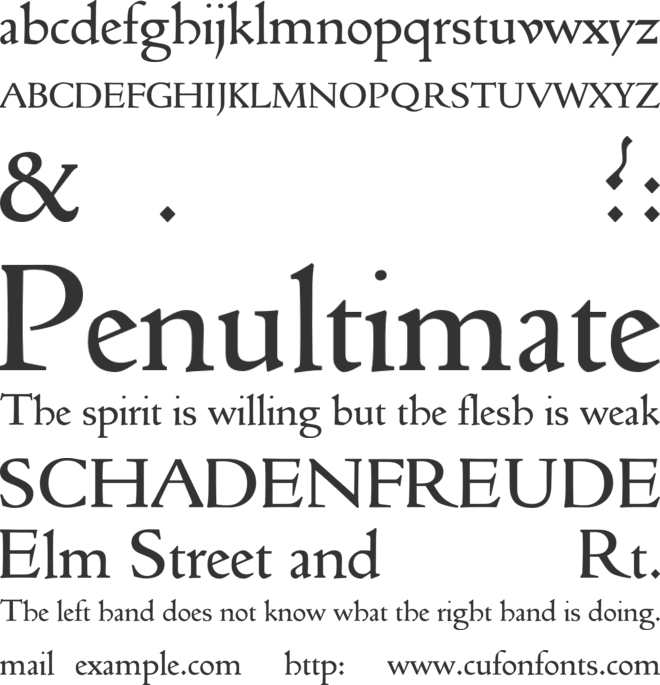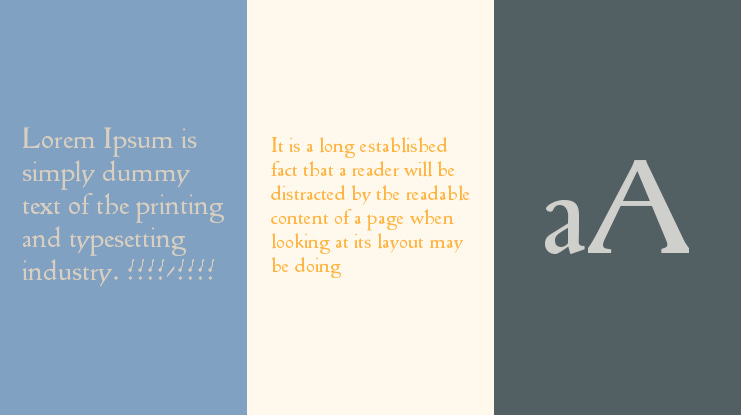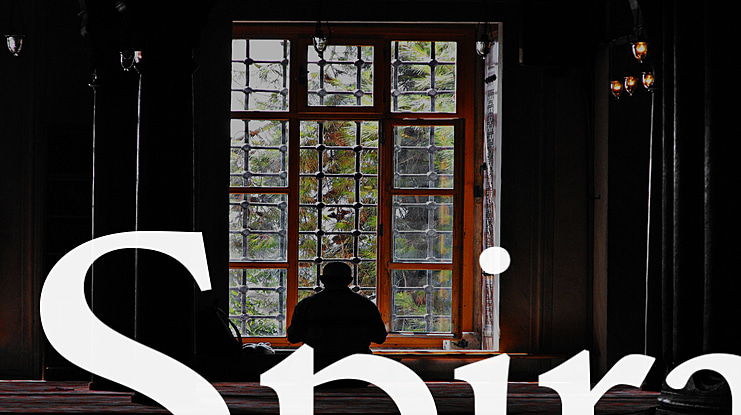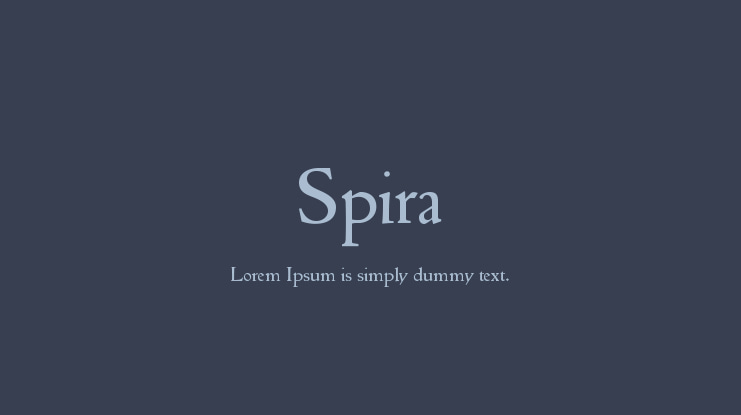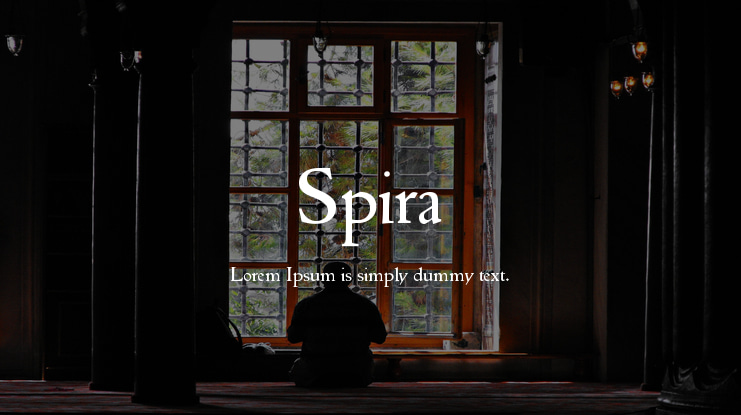
Spira Font
Alexis Faudot, Rafael Ribas
Spira 110R, Proto-Roman first used in Venice by Johannes and Vindelinus de Spira for Ciceroâs Epistolae ad familiares in 1469 and used until 1473 by Vindelinus.Type design workshop at ENSBA Lyon and Bibliothèque municipale de Lyon, March 2017.Sources: Opera, Cyprianus, 1471 & Geographiae libri, Strabon, 1472.Workshop participants: Marika Belle, Lucile Boutin, Ana Brena, Louis Brousseaud, Constance Burger-Leenhardt, Charlotte Carletto, Anais Chappelet, Elorah Connil, Aurelie Massa, Noemie da Cruz, Marie Doz, Camille Houel, Sarah Millet, Claire Mouton, Simon Penard, Marie Sophie Robert.Font designed and produced by Alexis Faudot and Rafael Ribas, directed by Jérôme Knebusch, Atelier National de Recherche Typographqiue (ANRT), Nancy.Copyright (c) 2019 ANRT. All rights reserved.